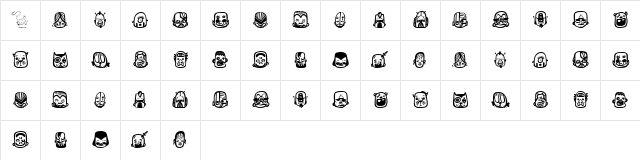
teubot Regular
Foundry: dcoxy
Designer: dcoxy/medina gregory
Design Context for teubot
teubot is a composed and adaptable typeface that performs quietly and consistently across a wide range of design contexts.